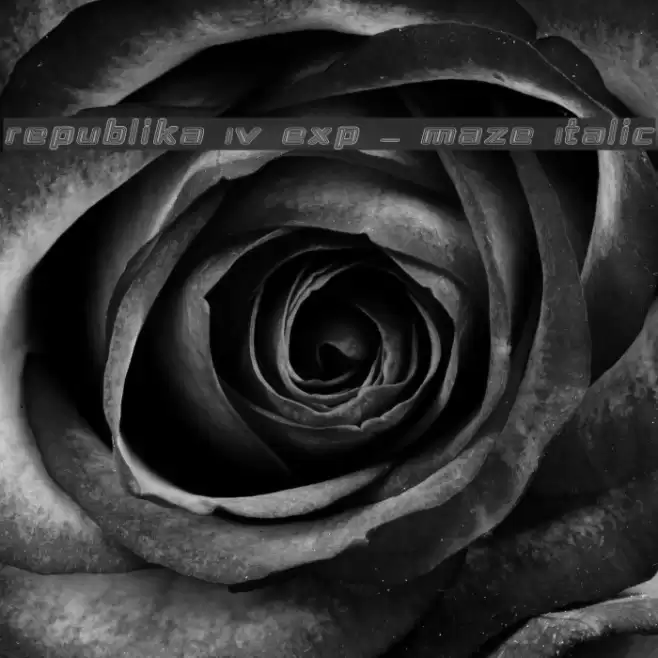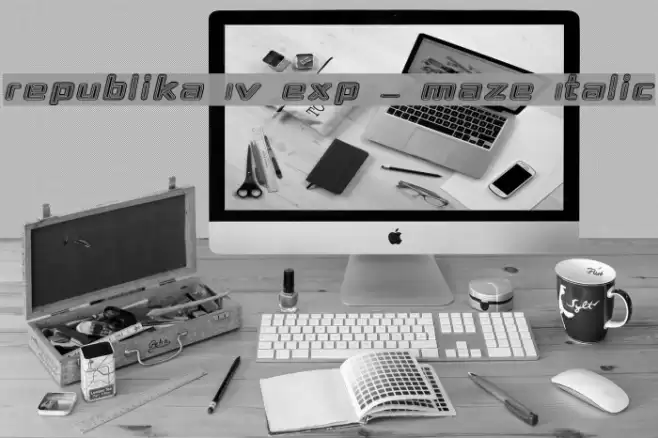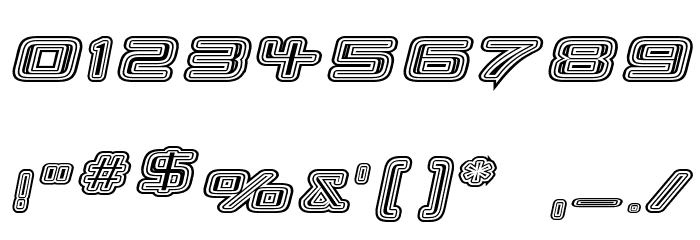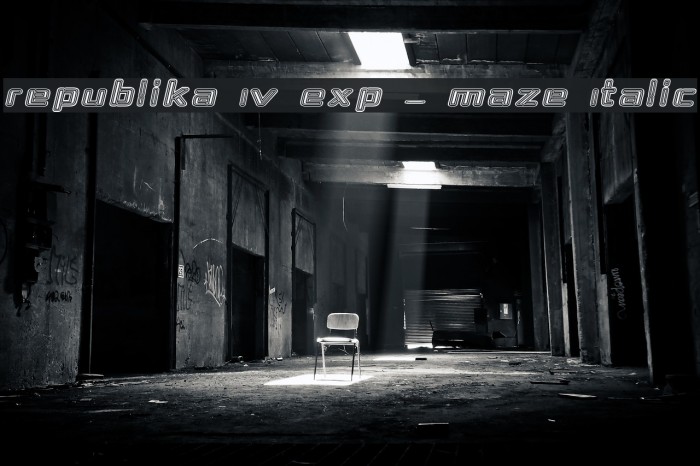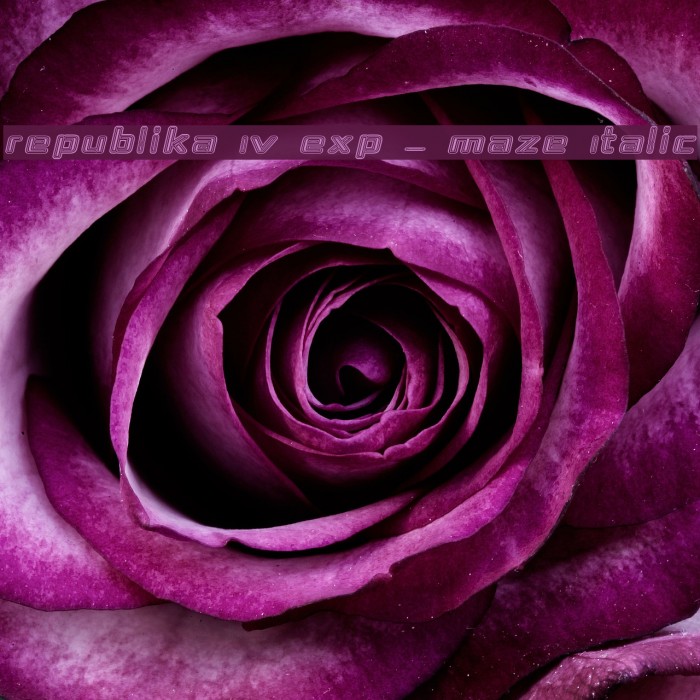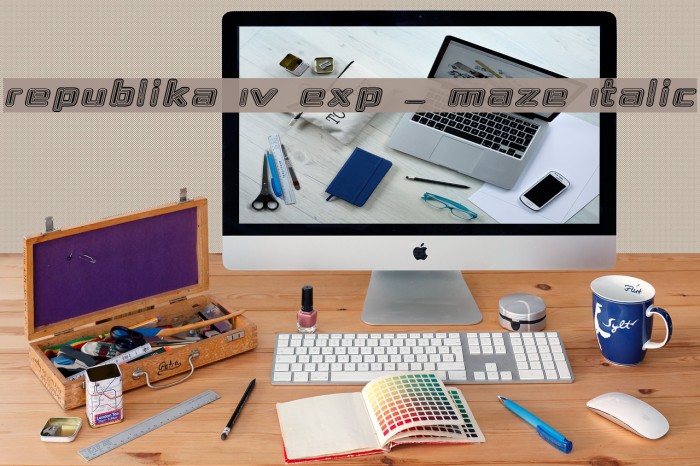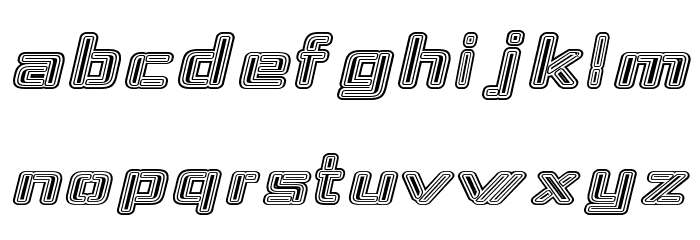
Republika IV Exp - Maze Italic Font
Republika IV Exp - Maze Italic Description
This font features a unique, maze-like design with a three-dimensional effect, created by multiple parallel lines that form each character. The letters are italicized, adding a dynamic and forward-leaning appearance. The overall style is modern and decorative, making it stand out with its intricate detailing. The font includes both uppercase and lowercase letters, numbers, and a variety of special characters. Its bold and structured form gives it a strong visual presence, suitable for eye-catching designs.
A modern, italicized decorative font with a maze-like, three-dimensional design from Uncategorized fonts.
- Proposed Projects: Ideal for creative projects such as posters, logos, and branding materials where a bold and unique typeface is desired.